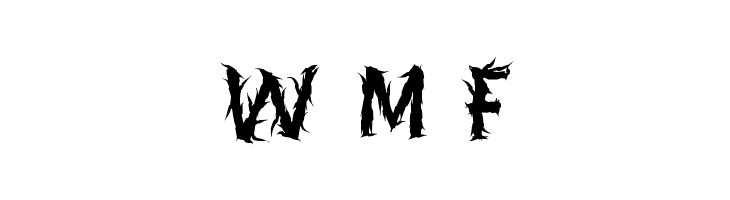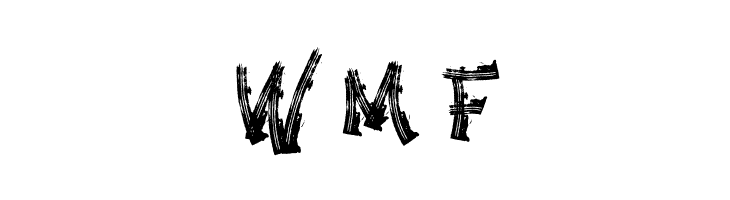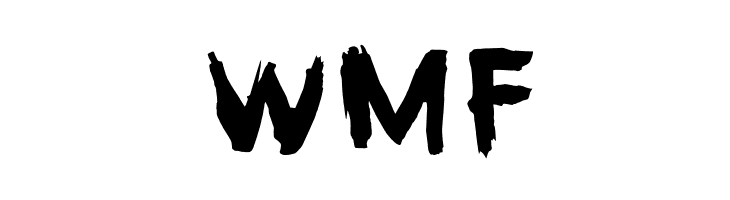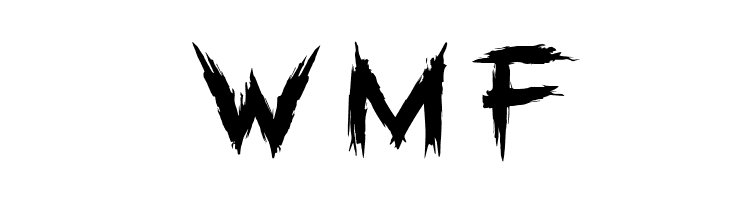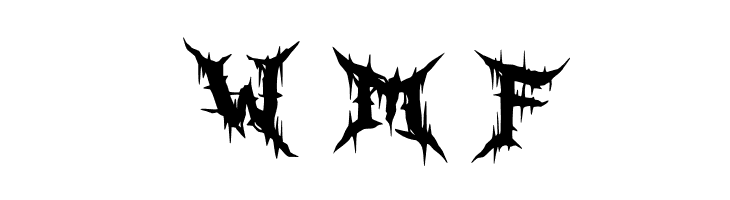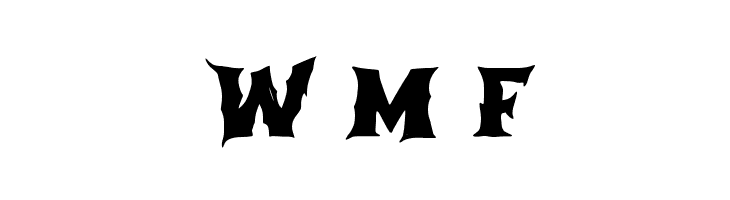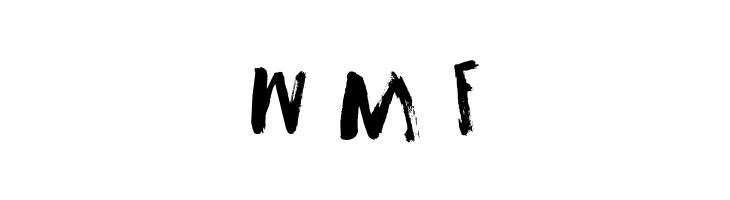
A bold, graffiti-inspired font with sharp, angular lines and a rebellious style.
A bold, edgy font with jagged, thorn-like edges and high contrast strokes.
A bold, brushstroke font with a rebellious and chaotic style.
A bold, edgy font with a hand-painted, rebellious style.
A bold, distressed font with jagged edges and a chaotic, hand-drawn appearance.
A bold, edgy font with jagged, distressed strokes for a rebellious look.
A bold, grunge-style font with jagged, distressed characters.
A thorny, decorative font with sharp, edgy details.
A bold, edgy font with sharp, angular edges and a distressed, dynamic appearance.
A bold, brushstroke font with a rebellious, artistic flair.